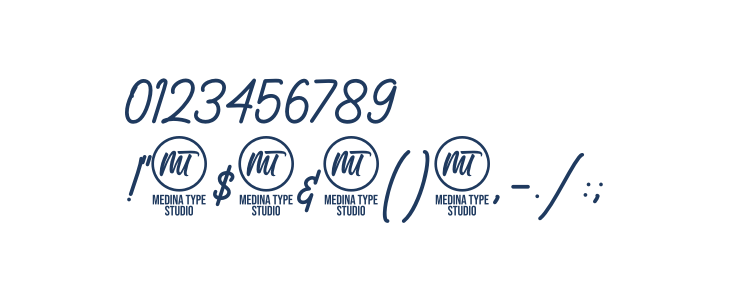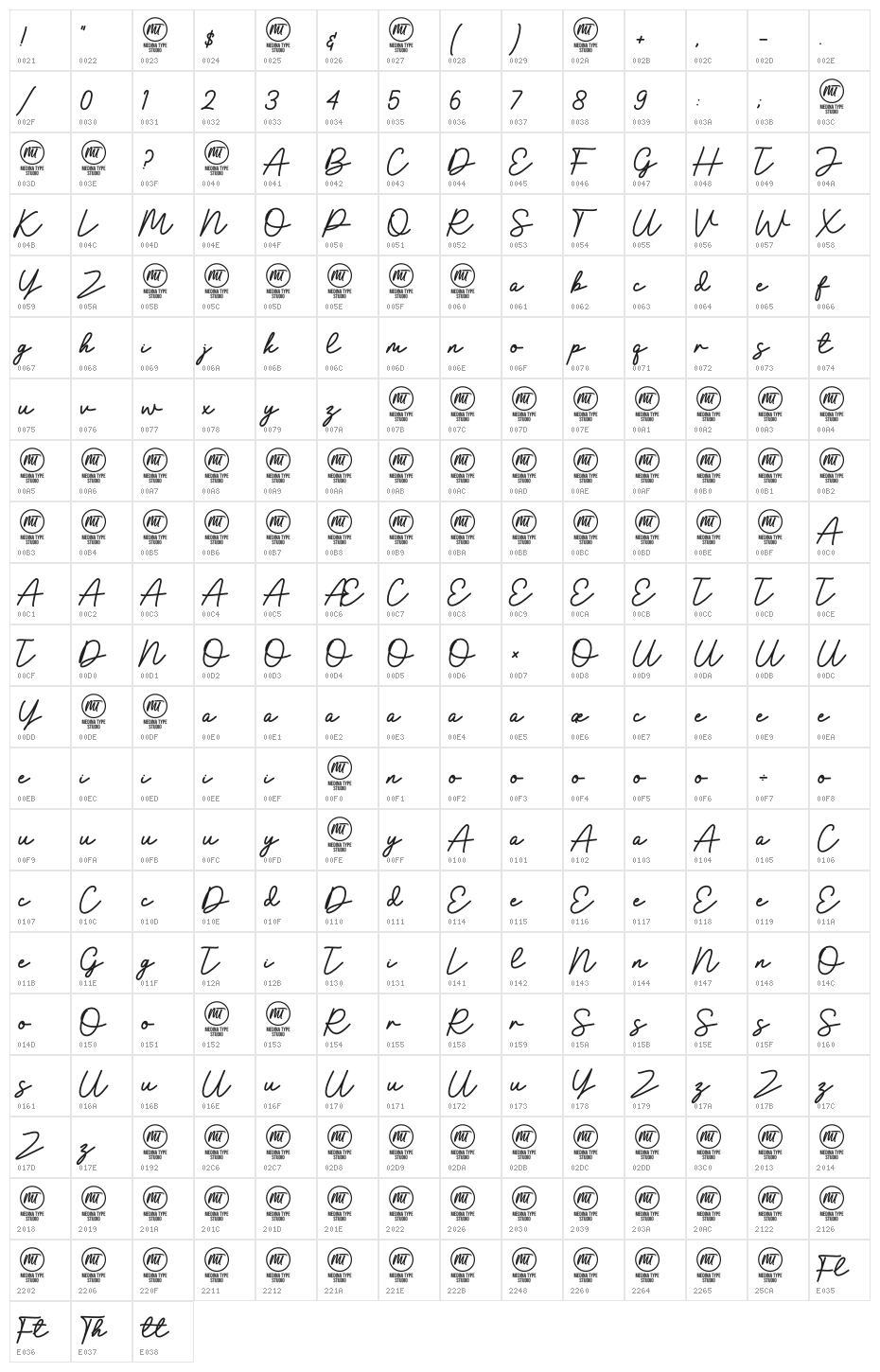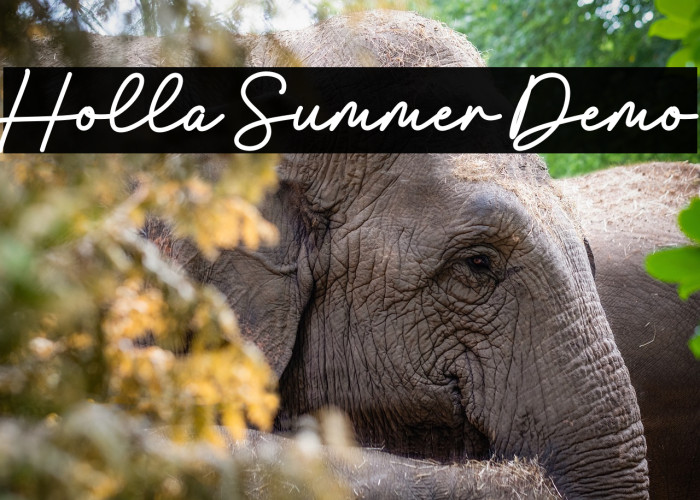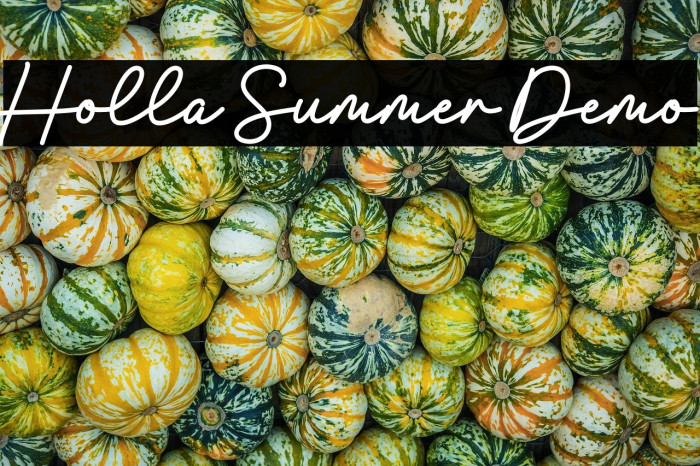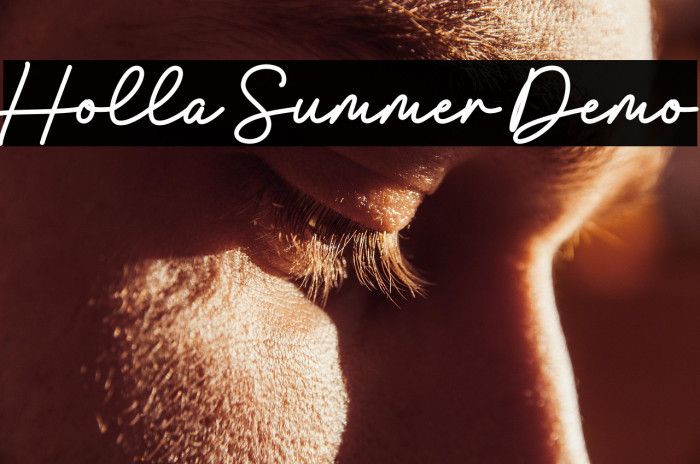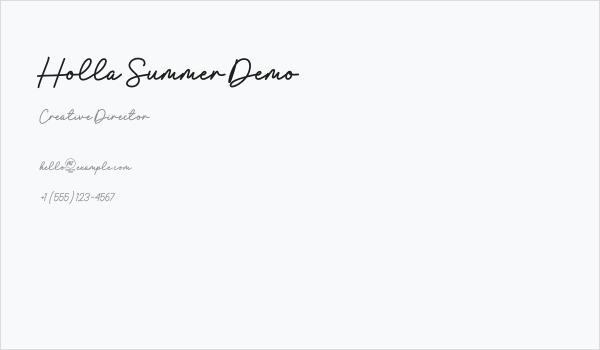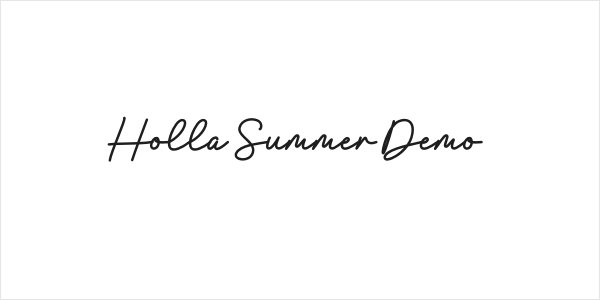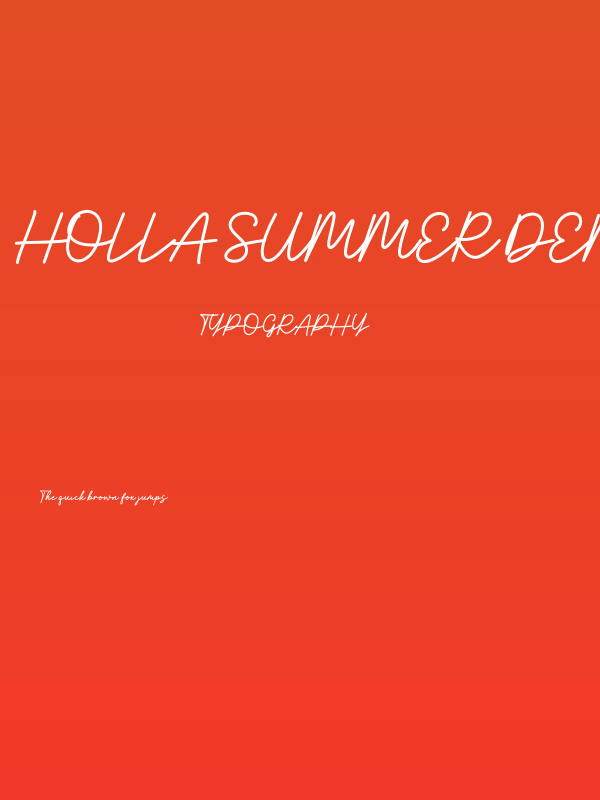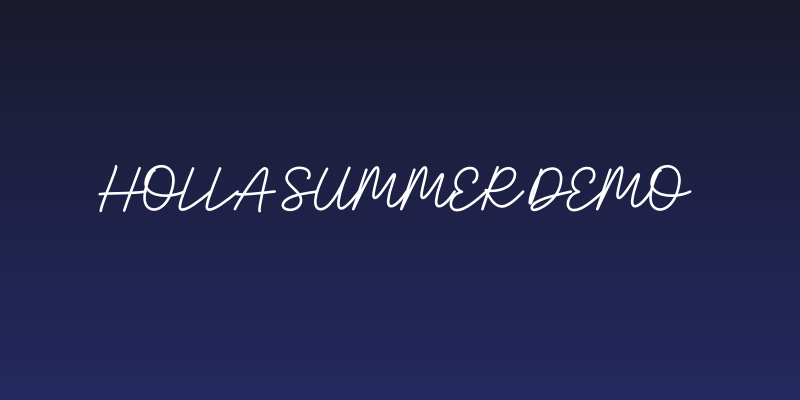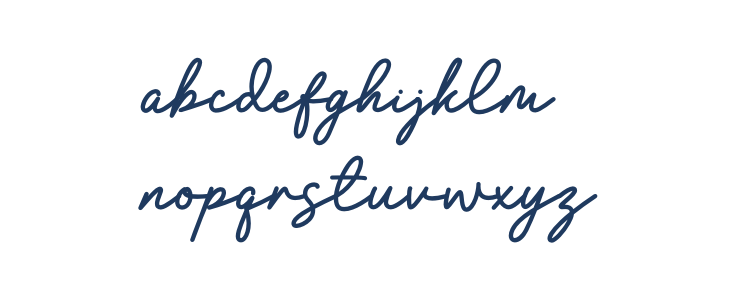
Holla Summer Demo Font
Holla Summer Demo Description
This font features a lively and flowing script style, characterized by its smooth, cursive letterforms that exude a sense of elegance and playfulness. The uppercase letters are slightly more angular, providing a dynamic contrast to the more rounded and fluid lowercase letters. The numerals maintain a consistent style with the rest of the font, ensuring a cohesive look. Special characters are thoughtfully designed to match the overall aesthetic, making this font versatile for various applications. Its handwritten appearance adds a personal touch, making it ideal for projects that require a warm and inviting feel.